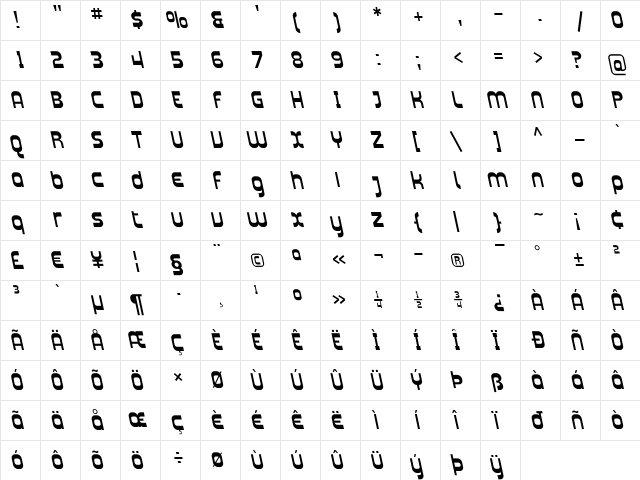
Plasmatica Rev Italic
| Designer | Derek Vogelpohl |
Design Context for Plasmatica Rev Typeface
Plasmatica Rev offers clean, dependable letterforms without strong stylistic allegiance, making it a practical choice for designers who need flexibility. The dynamic lean of this cut emphasises speed and emphasis in any layout.